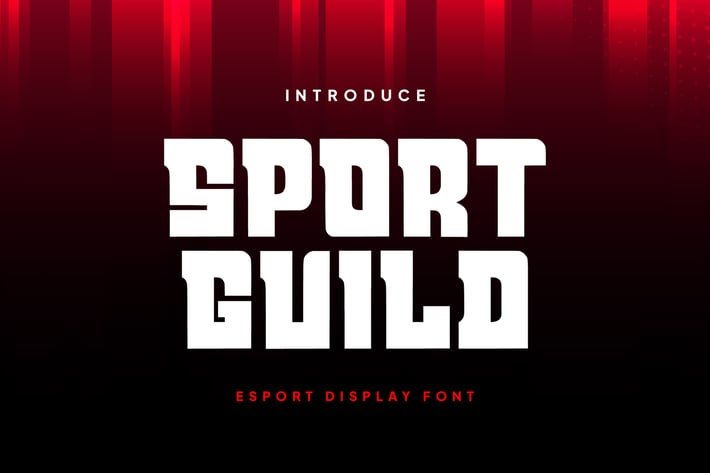
Sport Guild - Esport Display Font
Sport Guild - Esport Display Fontt
Sport Guild is an ideal font for esports designs that aim to be modern, futuristic, dynamic, and easy to read. This font is versatile and can be used for various purposes in the esports world.